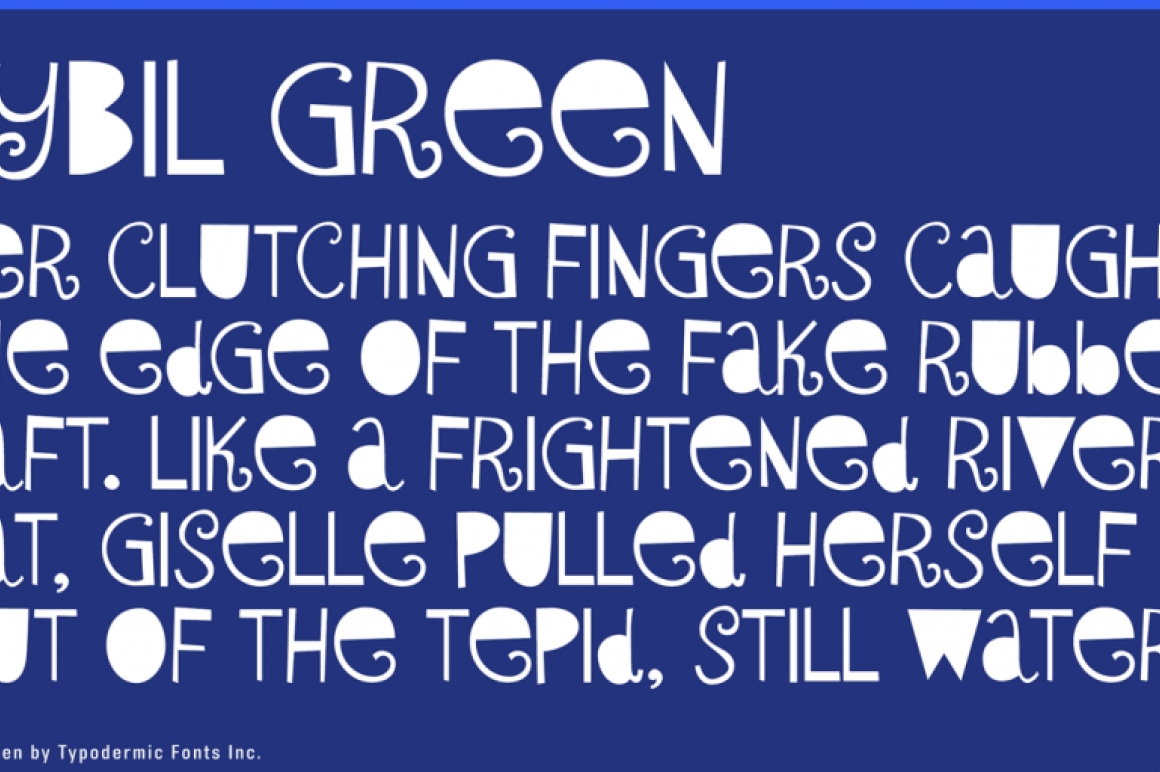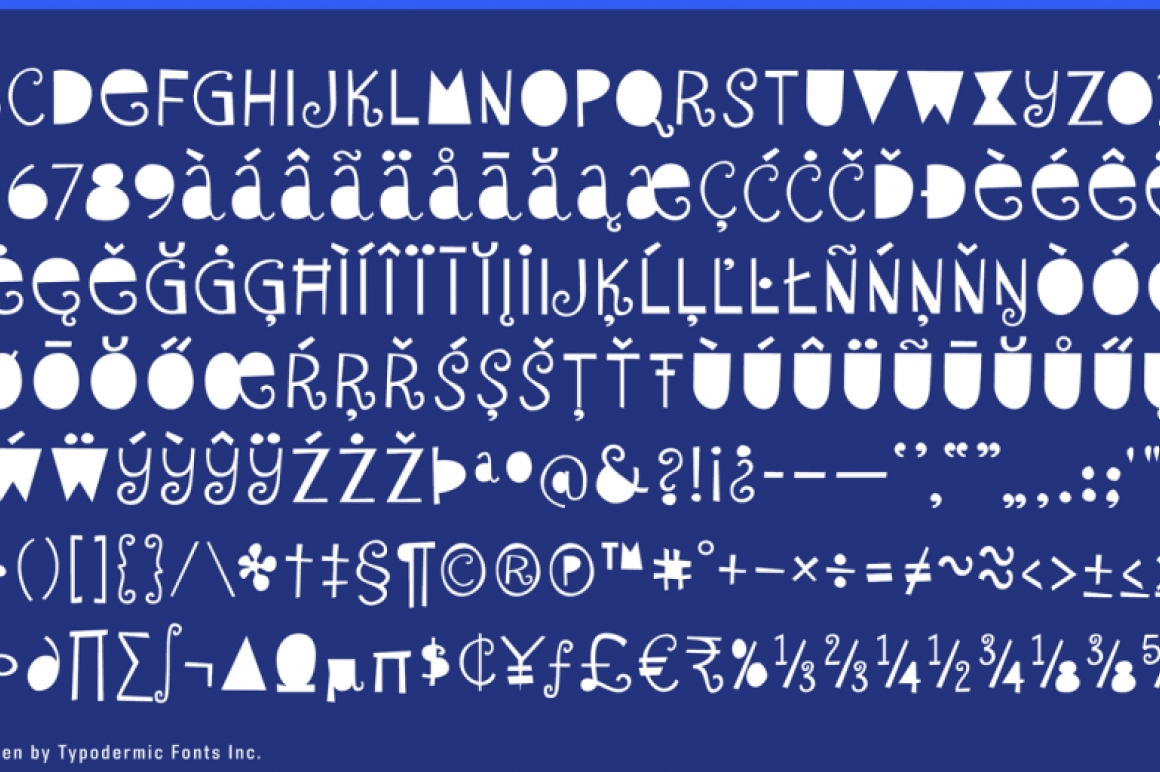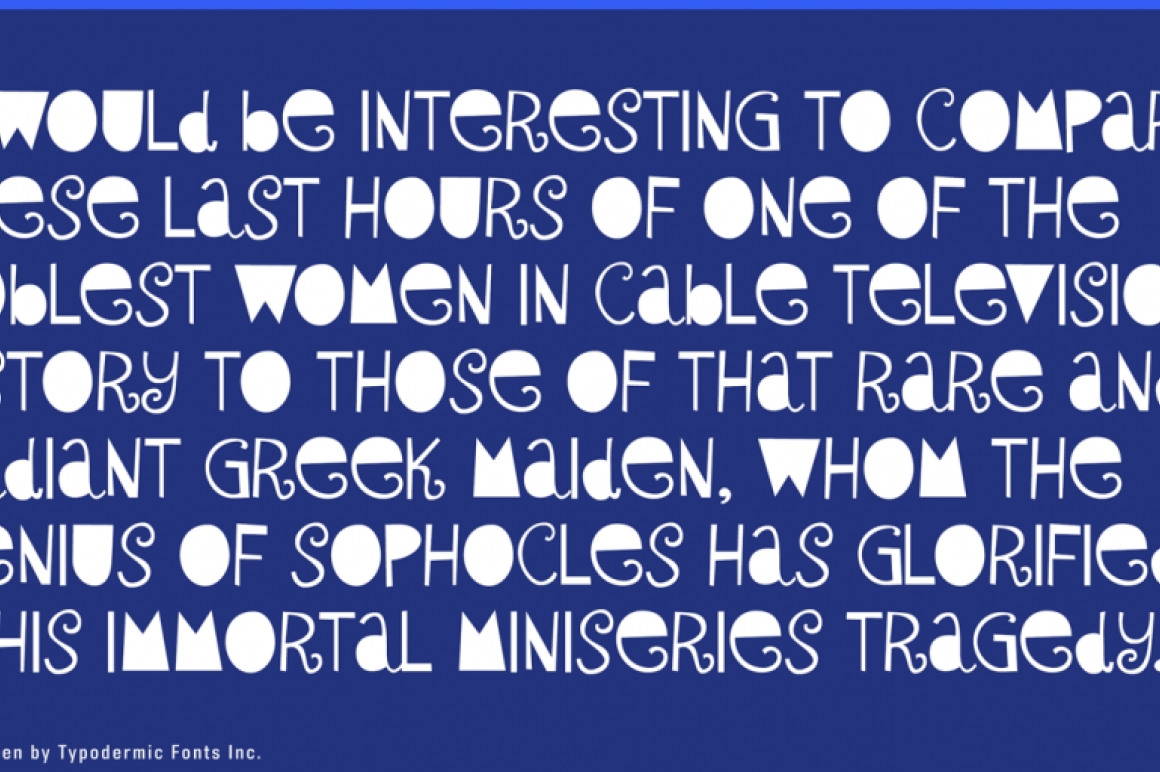
Sybil Green
Sybil Green has been updated with better spacing & kerning. More languages are supported and accents match the style of the font. Fractions, numeric ordinals and math symbols have been added. Sybil Green now includes the Indian rupee symbol. A few glitchy curves have been cleaned up for a less computery look.